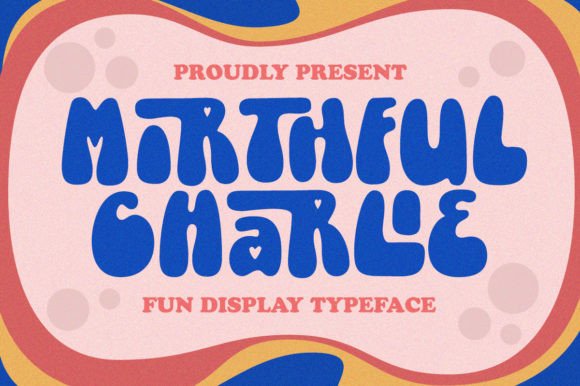
Introducing Mirthful Charlie Font, the best choice for adding a delightful and playful vibe to your design projects! Created by the talented letterhend, this quirky bold font is here to elevate your creative game.
With its bold and whimsical form, Mirthful Charlie Font brings a sense of cheerfulness and joy to any design. Whether you're working on posters, invitations, greeting cards, logos, or other projects, this font is guaranteed to captivate your audience.
What sets Mirthful Charlie Font apart is its versatility and ability to inject fun into any design. Its playful curves and charming details create a unique and eye-catching visual experience that will leave a lasting impression. Say goodbye to boring and mundane designs!
Picture this: a vibrant poster that grabs attention, an invitation that sets the perfect tone, or a logo that screams personality. Mirthful Charlie Font brings your imagination to life with its expressive and captivating nature.